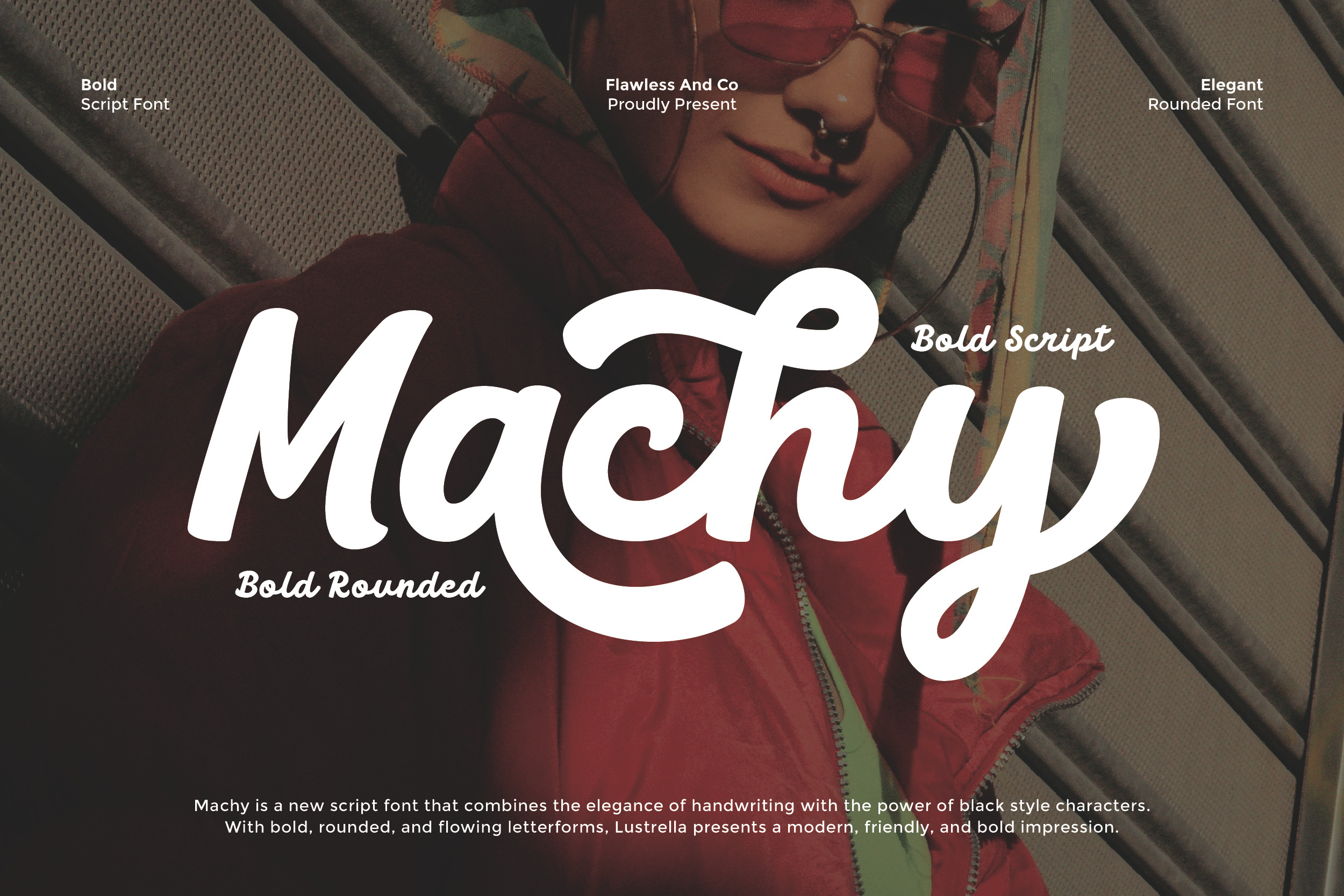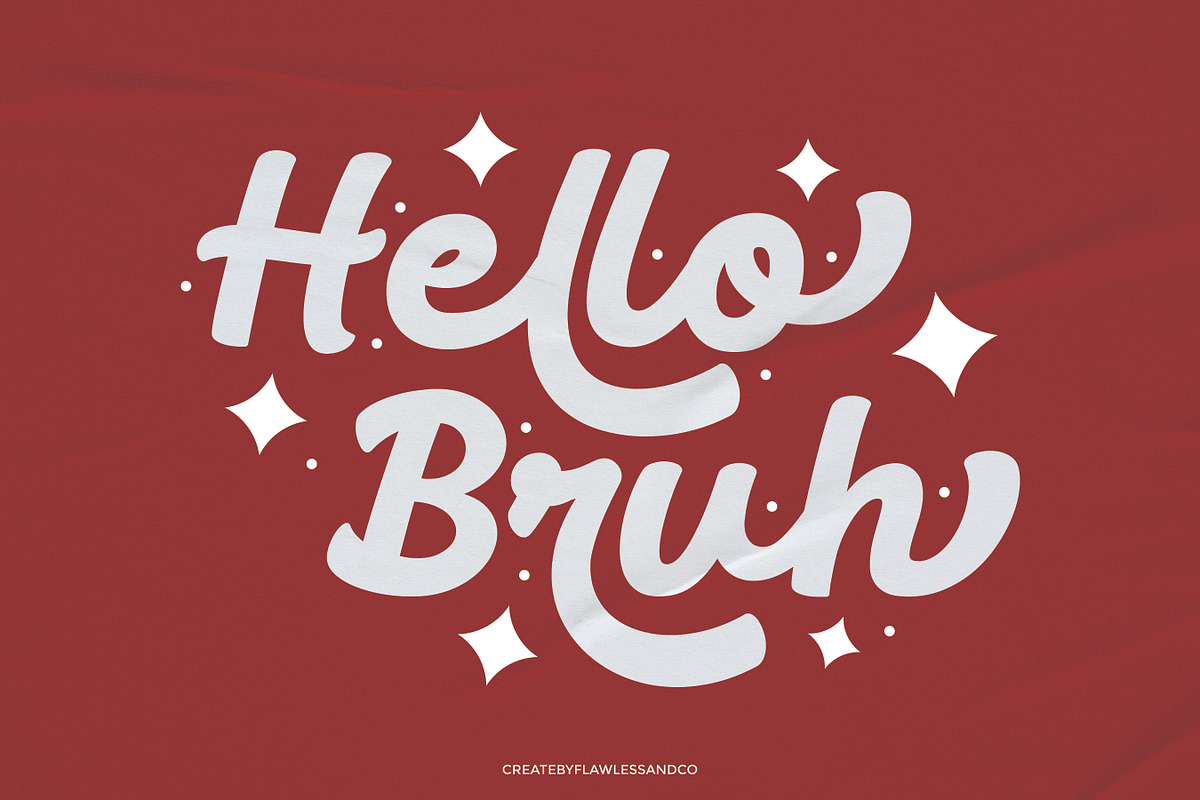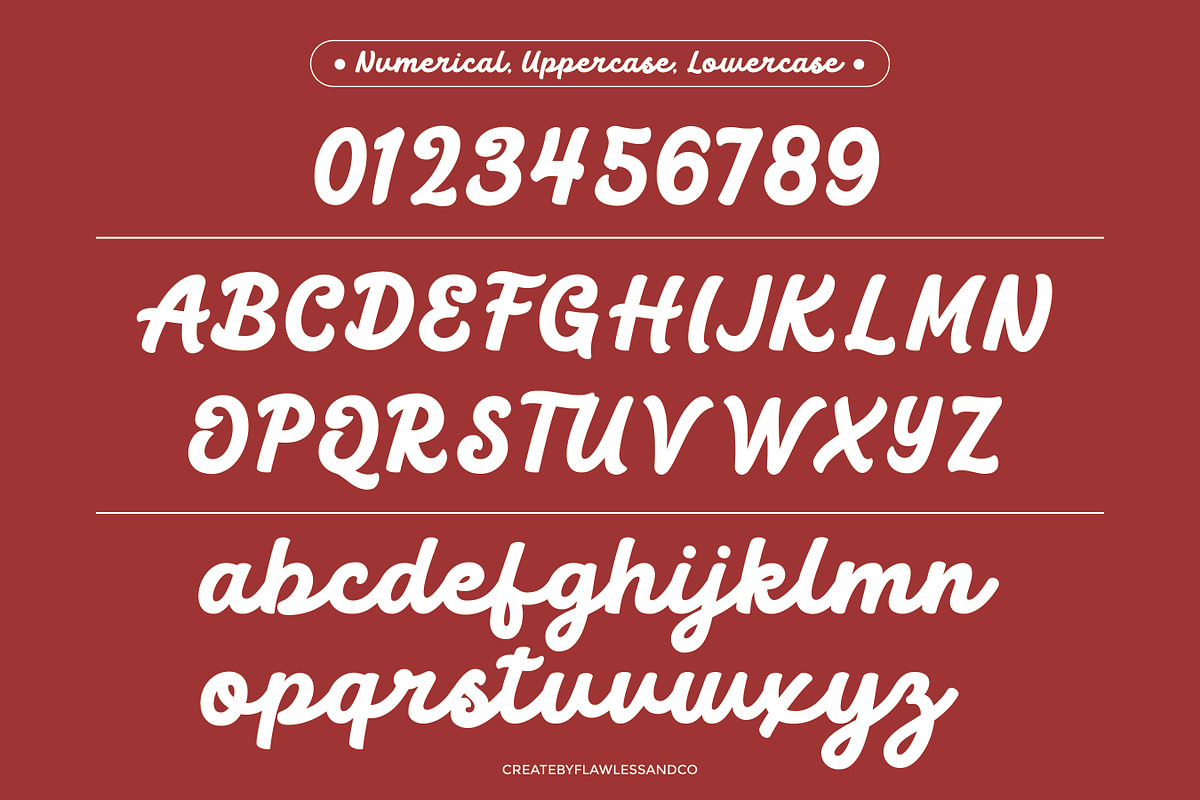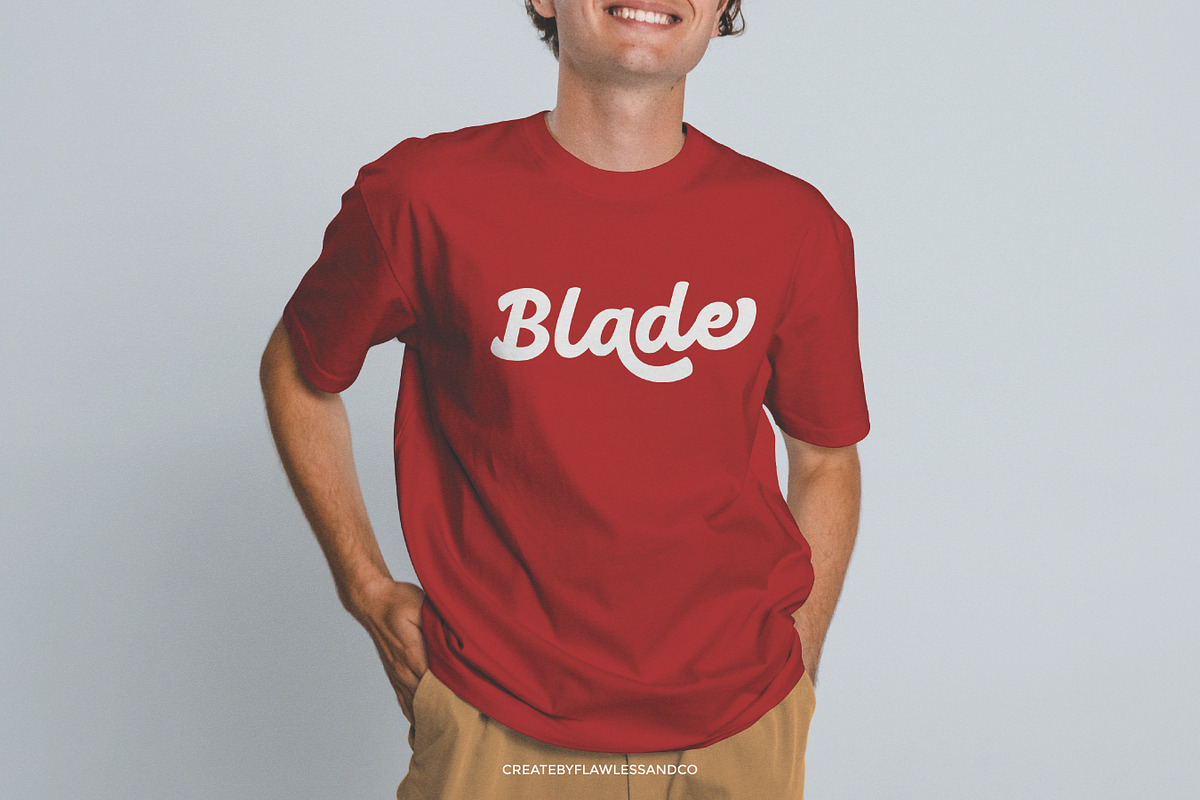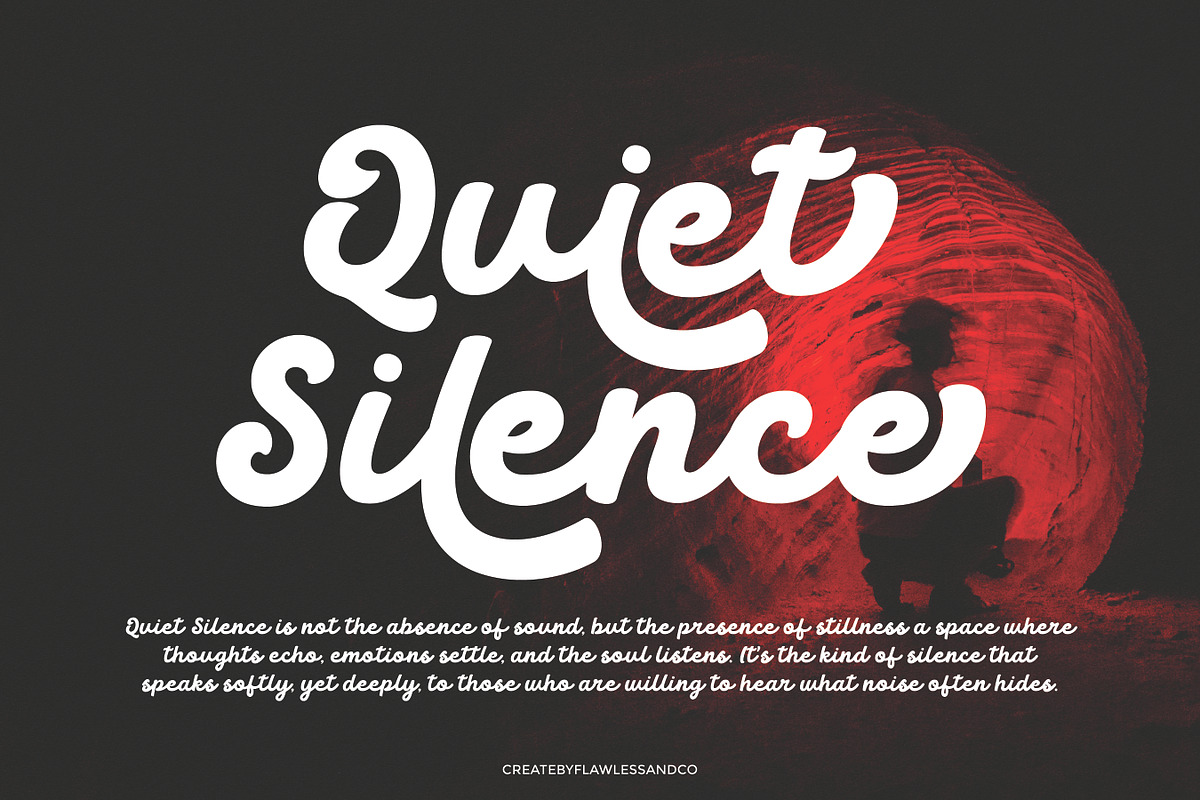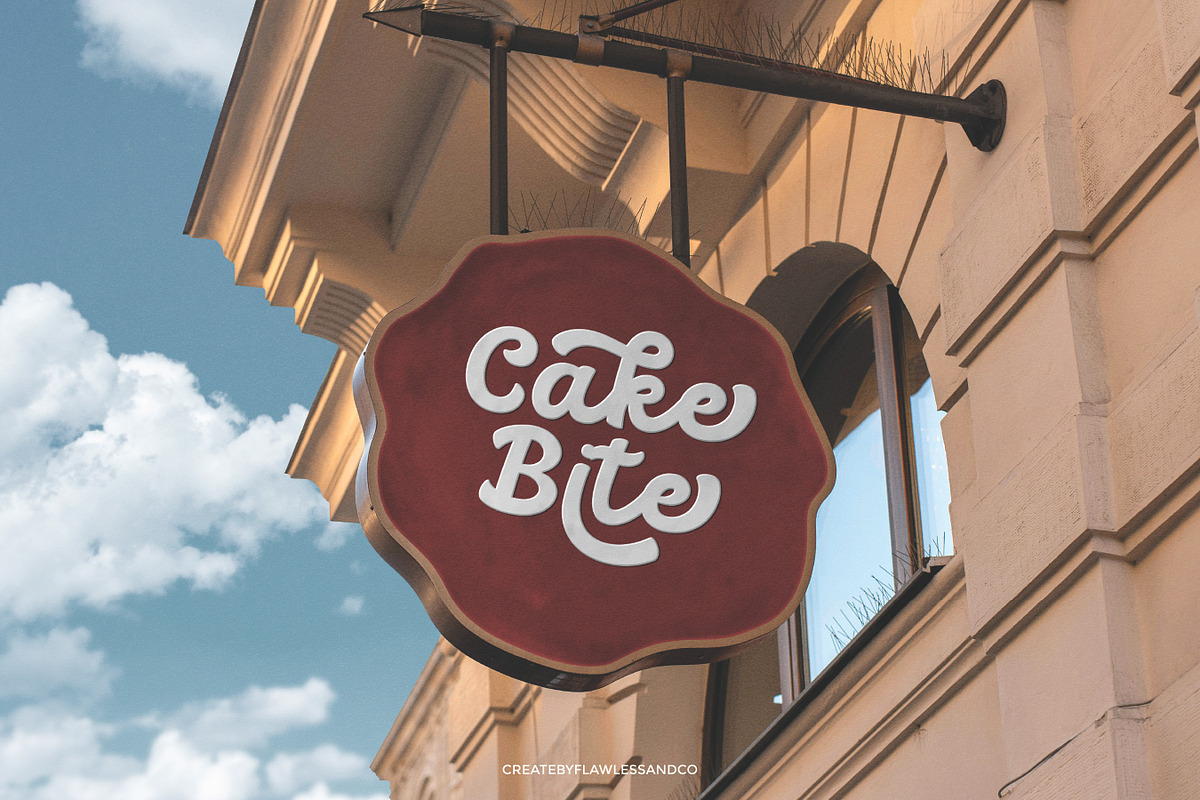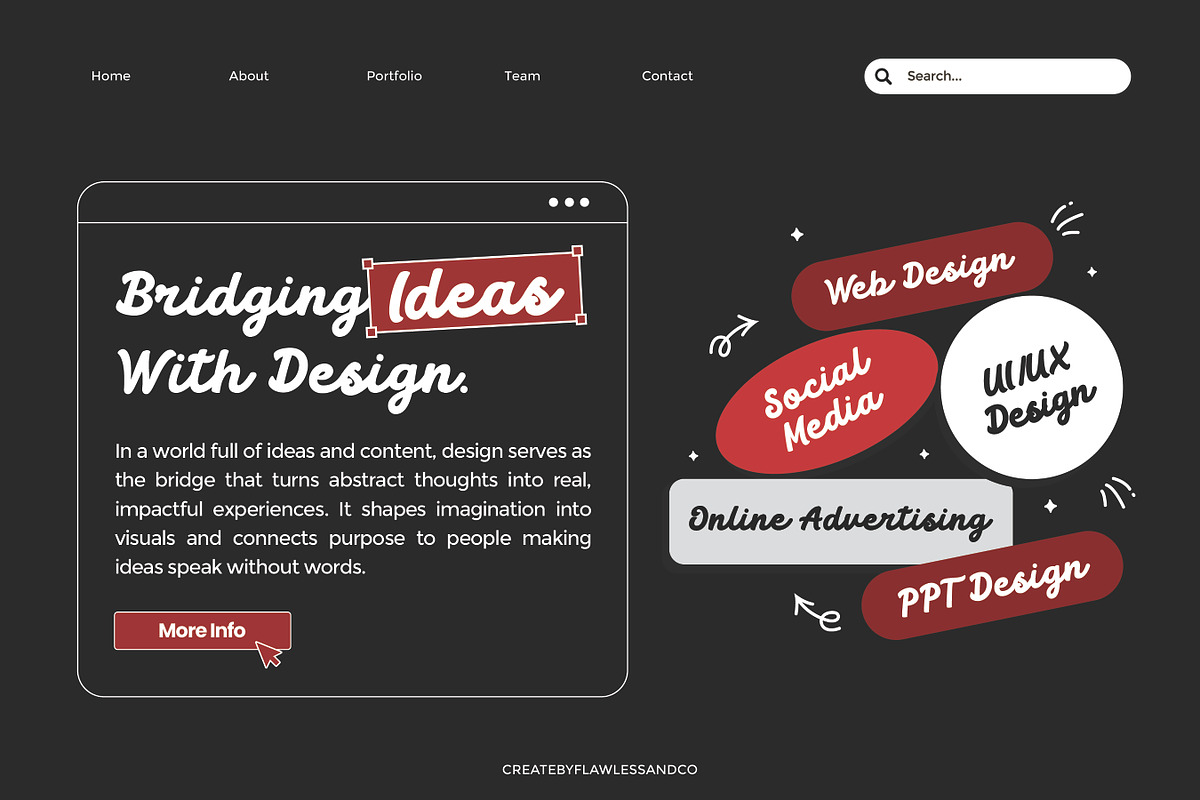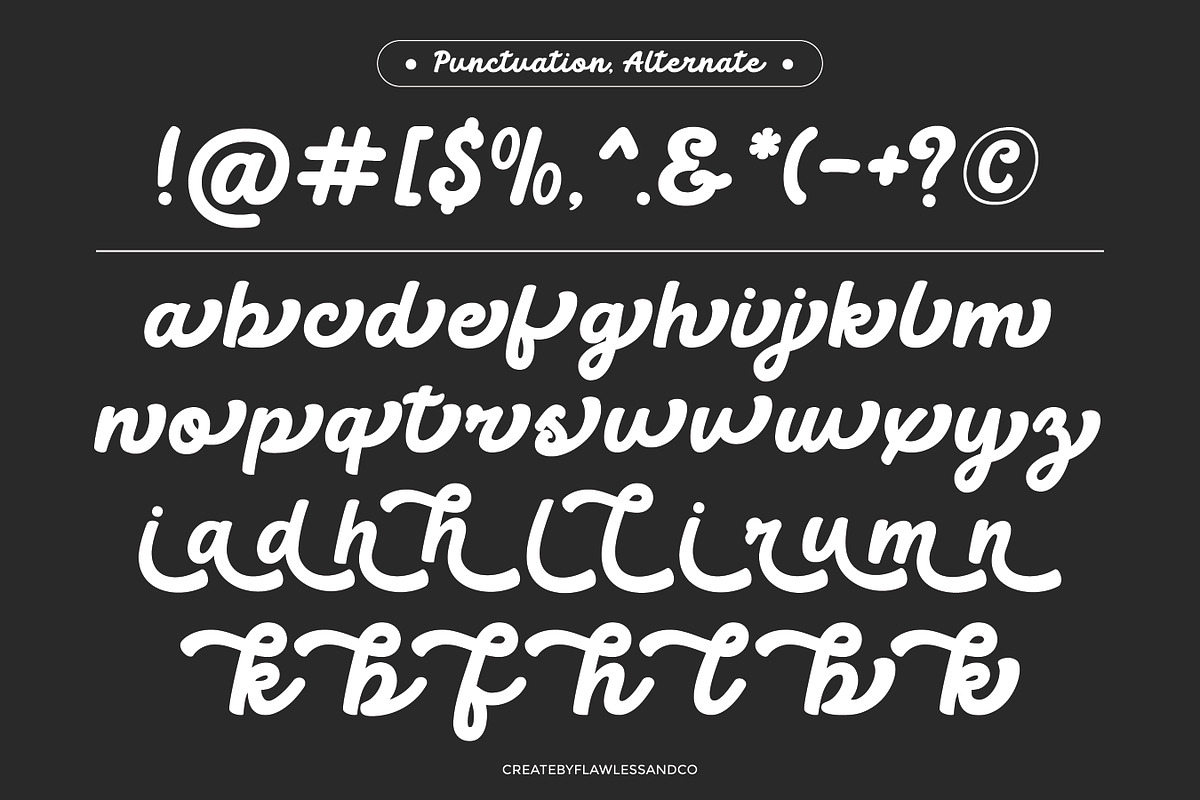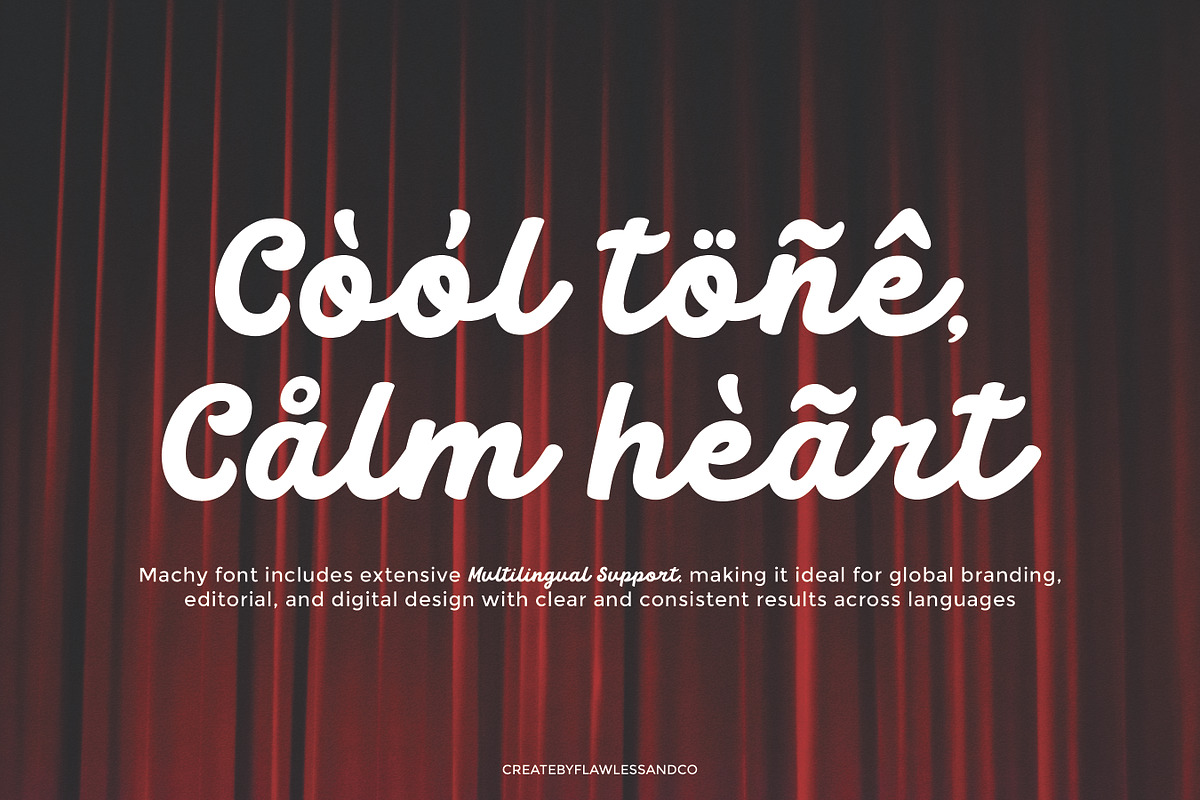
Machy - Handwritten Script Font
Machy - Bold Script Font
Machy is a bold script font that blends strength with smooth, flowing curves. Designed to exude confidence and personality, it offers a handcrafted feel while maintaining a modern edge. The bold weight ensures high visibility, while the script style adds elegance and charm—making it perfect for designs that need both impact and style.
Who Should Use Machy?
Machy is perfect for designers, brand creators, and business owners who want to combine bold impact with a stylish, handcrafted touch. It’s ideal for anyone looking to make their brand, logo, or product design stand out with personality and confidence. Whether you’re crafting eye-catching packaging, statement merchandise, or memorable social media visuals, Machy delivers a strong yet elegant presence that leaves a lasting impression.
A Must-Have Font for "Brand and Logo" Creators and Designers
Machy is the go-to choice for creatives who want a bold script font that radiates confidence and charm. Its thick, flowing strokes make it perfect for building strong brand identities and striking logo designs. With its balance of power and elegance, Machy ensures your designs capture attention and convey professionalism with style.
Why Choose Machy for "Brand and Logo" Projects?
Machy combines the strength of bold lettering with the elegance of script styling, making it a powerful asset for brand and logo creation. Its dynamic curves and impactful weight ensure that your designs stand out while maintaining a professional, stylish appeal. Whether you’re aiming for a modern, trendy vibe or a timeless handcrafted feel, Machy delivers versatility and visual impact that leaves a lasting impression.
Suitable For:
- Brand identities and logo design
- Product packaging and labels
- Posters, flyers, and event promotions
- Social media graphics and advertisements
- Apparel and merchandise design
- Signage and storefront displays